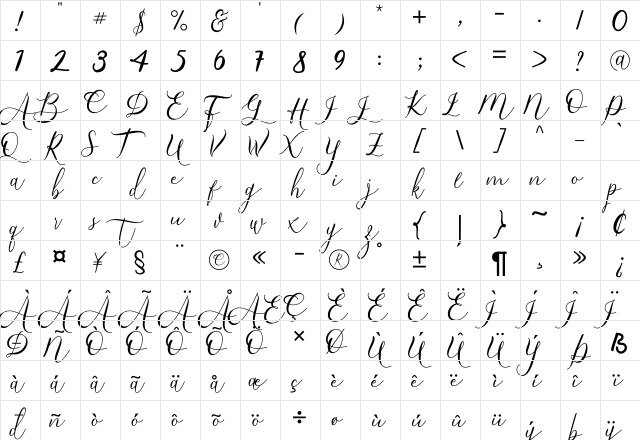
Bintari Regular
Design Context for Bintari Typeface
Bintari is a composed and adaptable typeface that performs quietly and consistently across a wide range of design contexts.